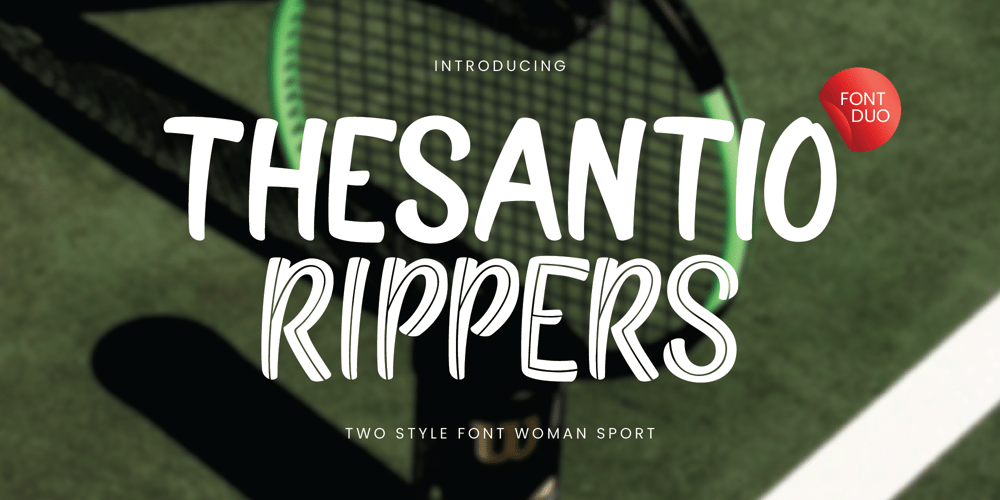
Thesantio Rippers Font Family was designed by Achmad Yani and published by Flawlessandco. Thesantio Rippers contains 2 styles and family package options. Introducing “Thesantio Rippers,” a bold and dynamic font designed to celebrate the strength and elegance of women in sports. With its two versatile styles, Regular and Line, Thesantio Rippers is perfect for sports branding, apparel, promotional materials, and more, ensuring your designs radiate confidence and energy.There’s some connected letters and some alternates that suitable for any graphic designs such as branding materials, t-shirt, print, business cards, logo, poster, t-shirt, photography, quotes .etcThis font support for some multilingual. Also contains uppercase A-Z and lowercase a-z, alternate character, numbers 0-9, and some punctuation.If you need help, just write me! Thanks so much for checking out my shop!